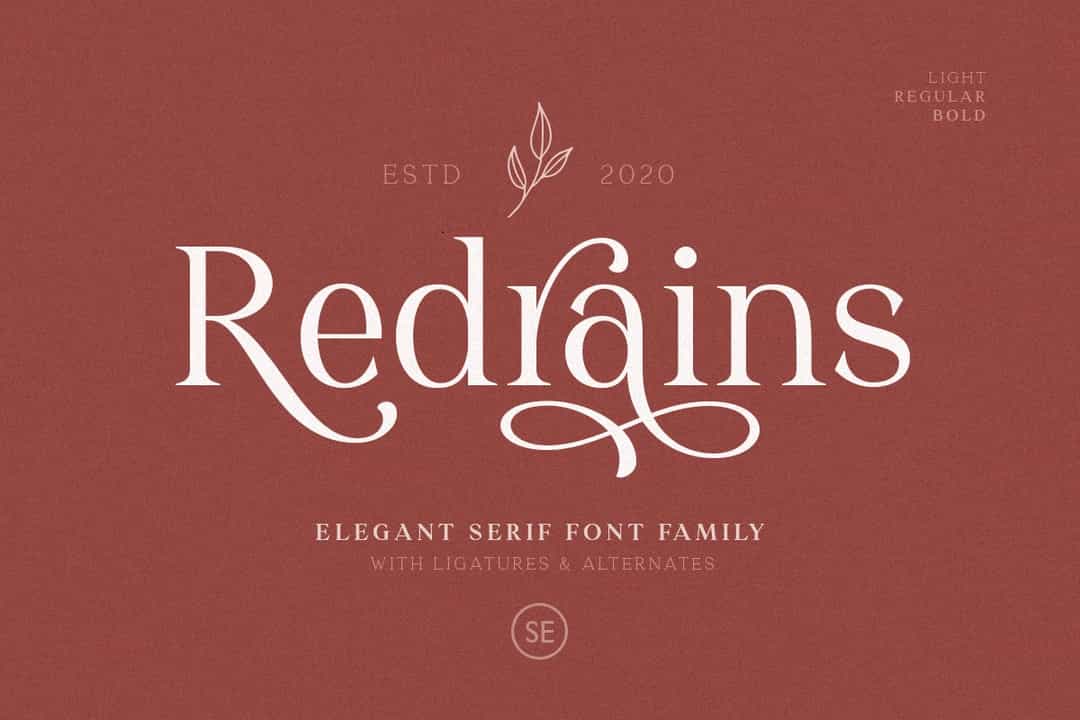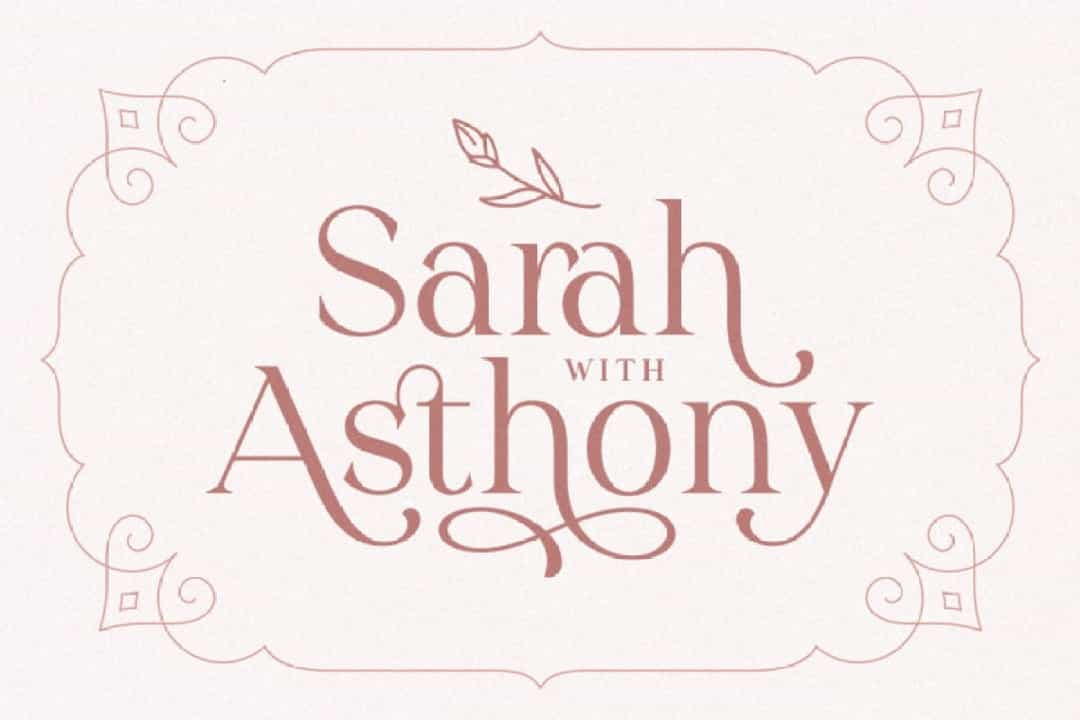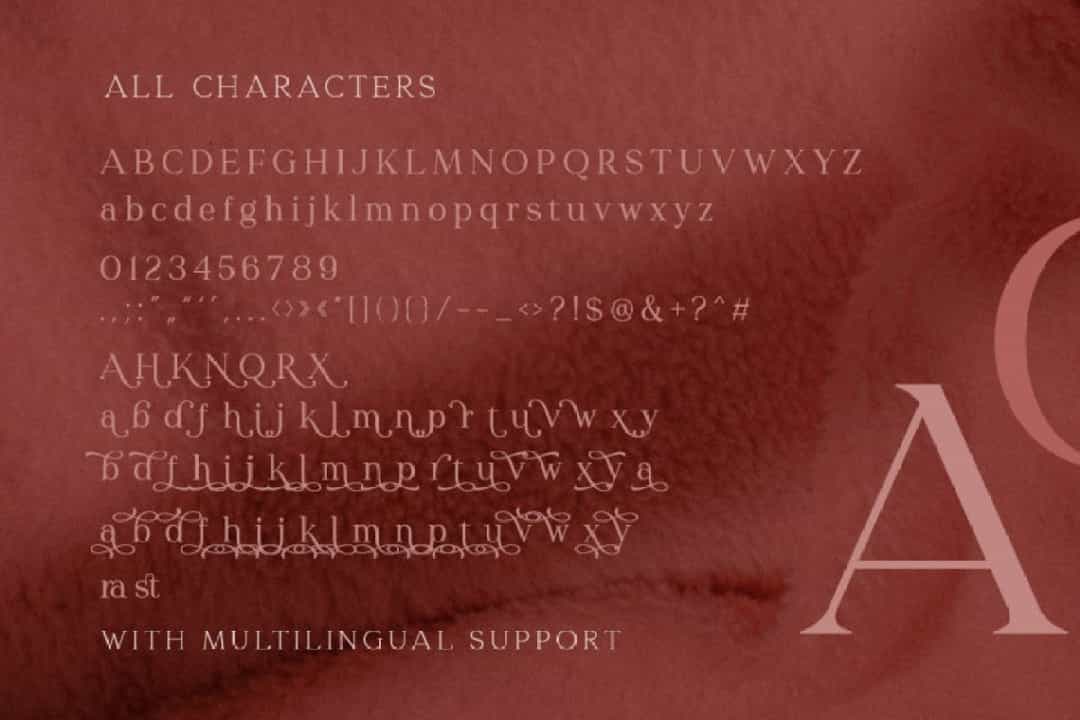
Redrains Font is a timeless serif typeface that adds a modern and sophisticated feel to editorial or fashion designs. You won’t be disappointed when adding Redrains into your designs, it won’t disappoint!